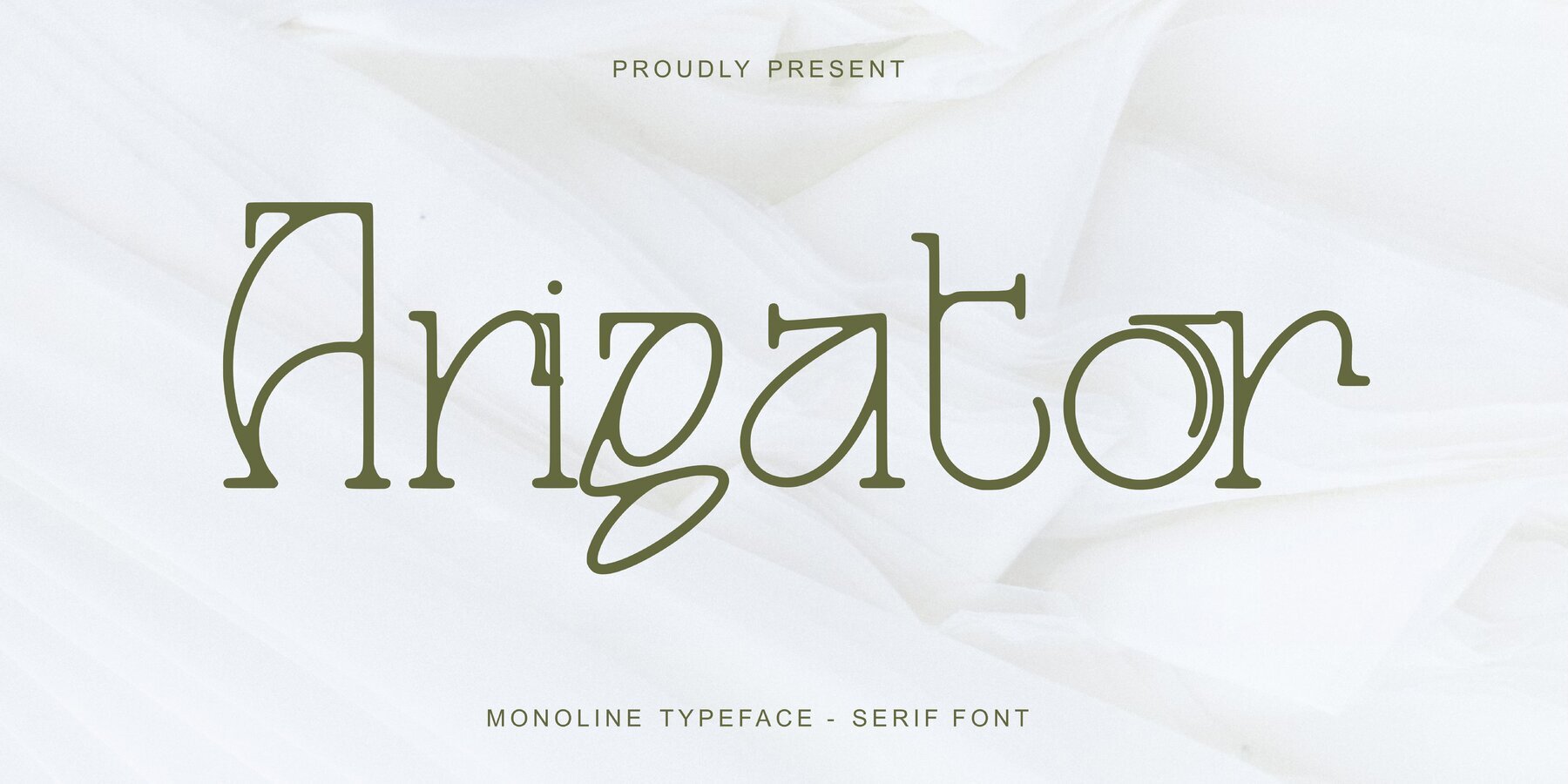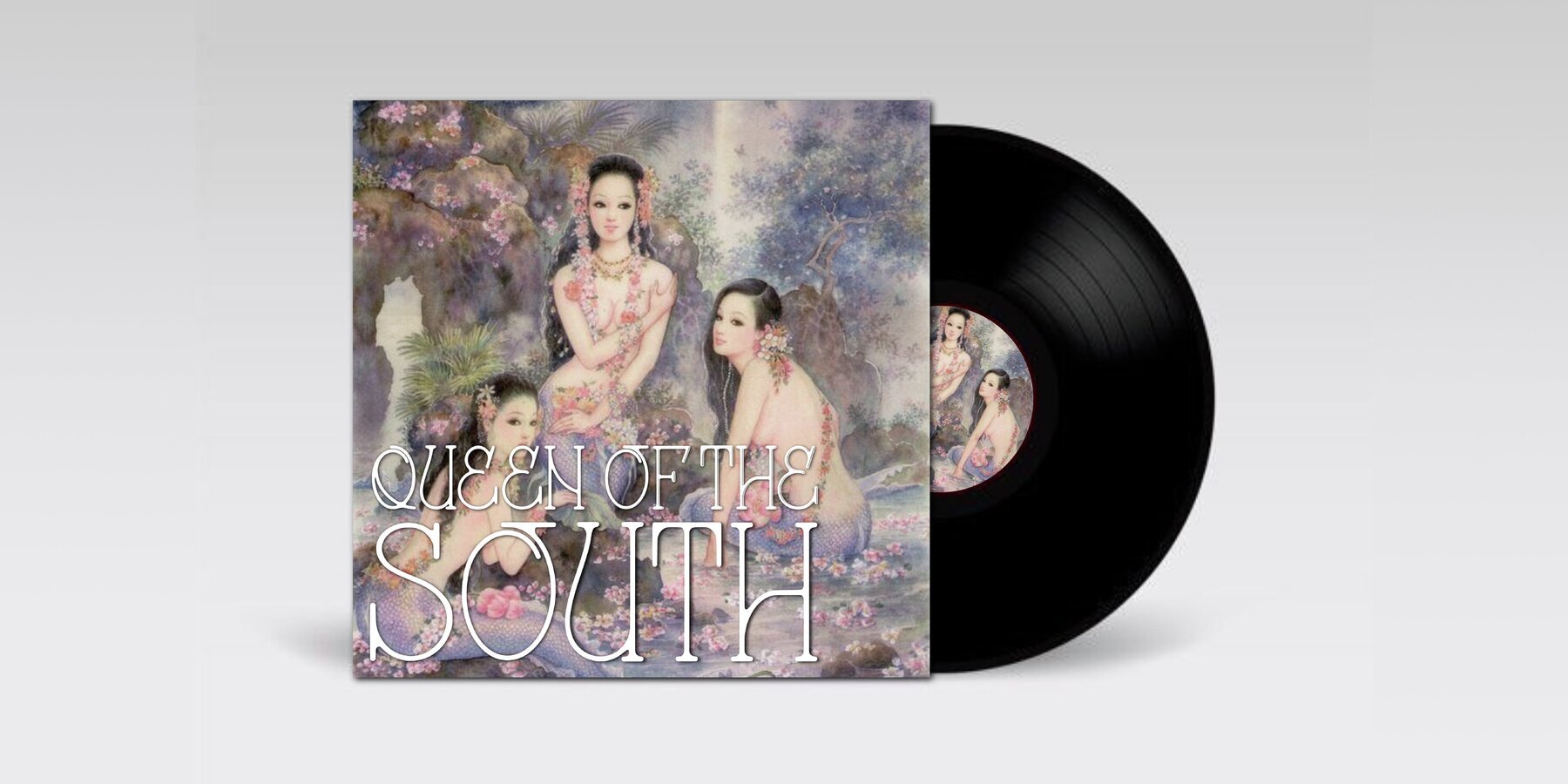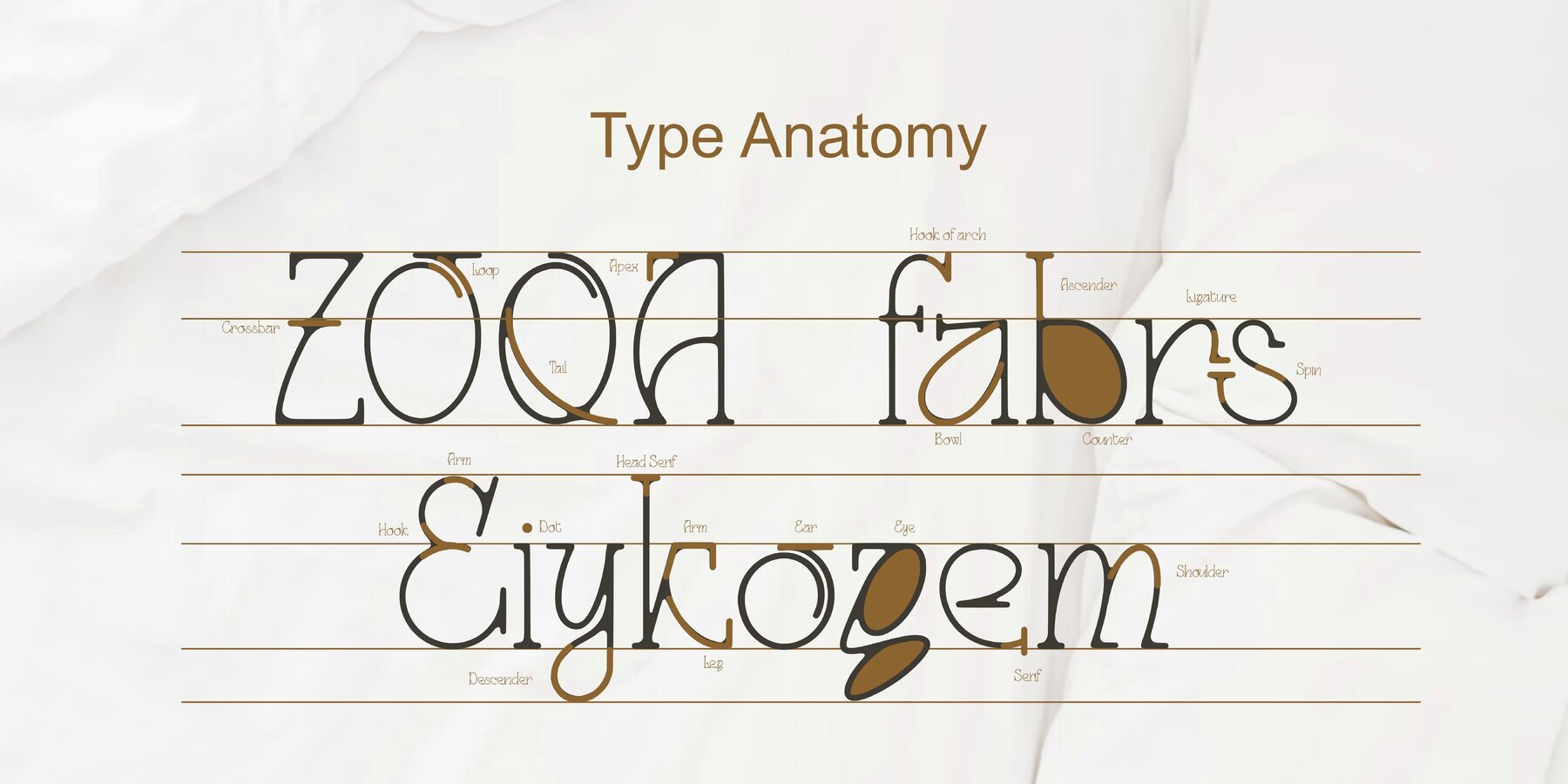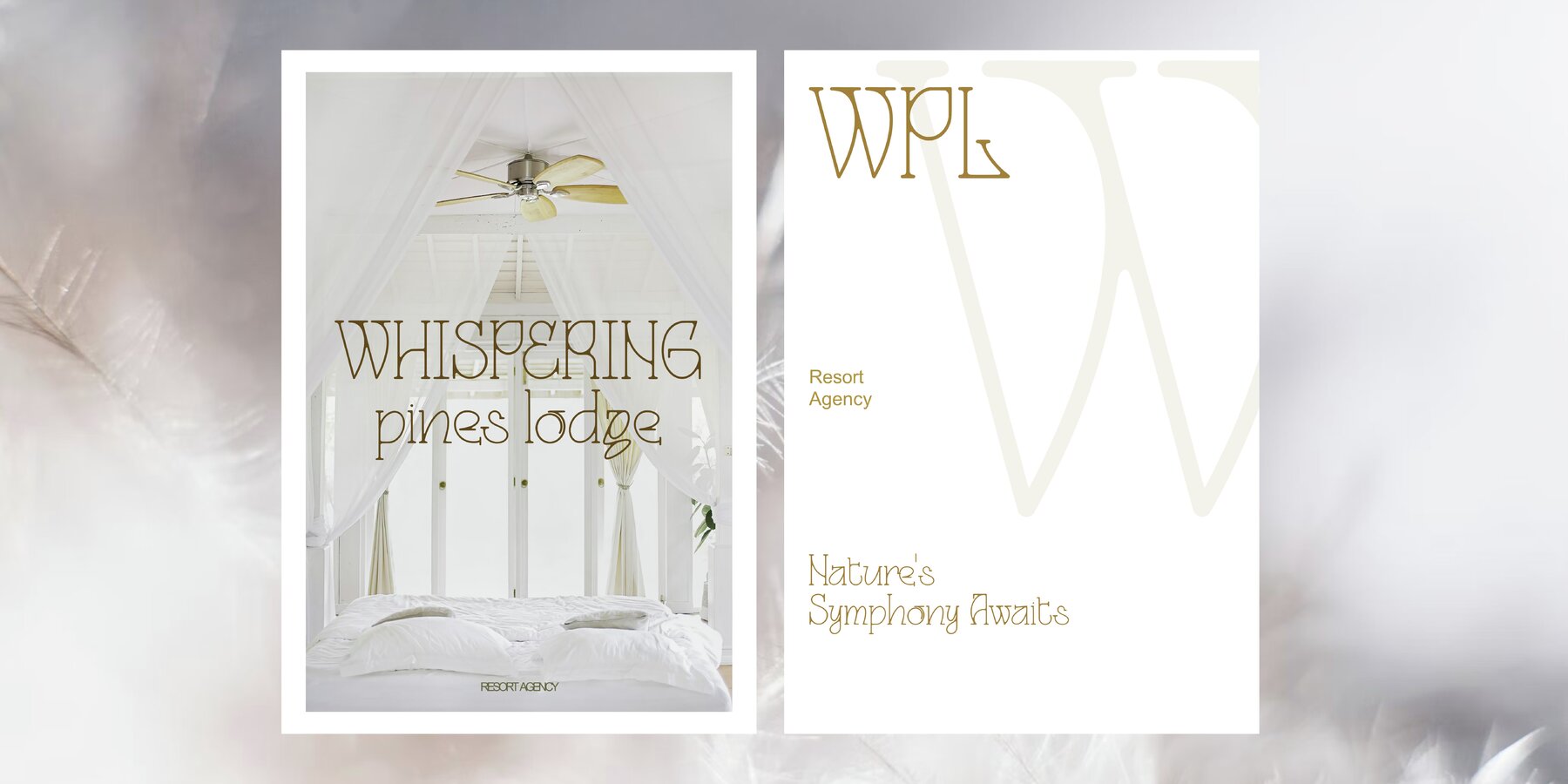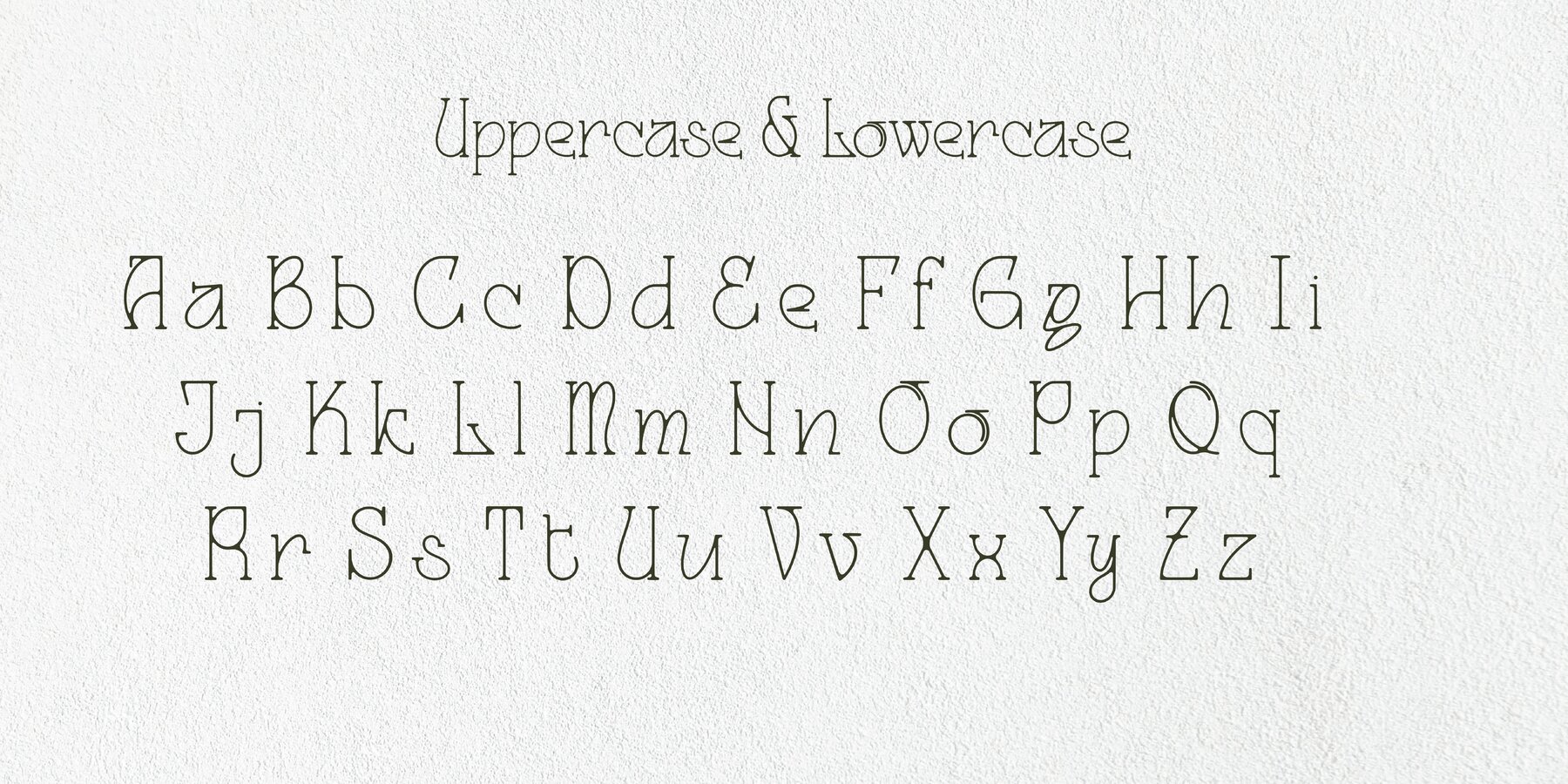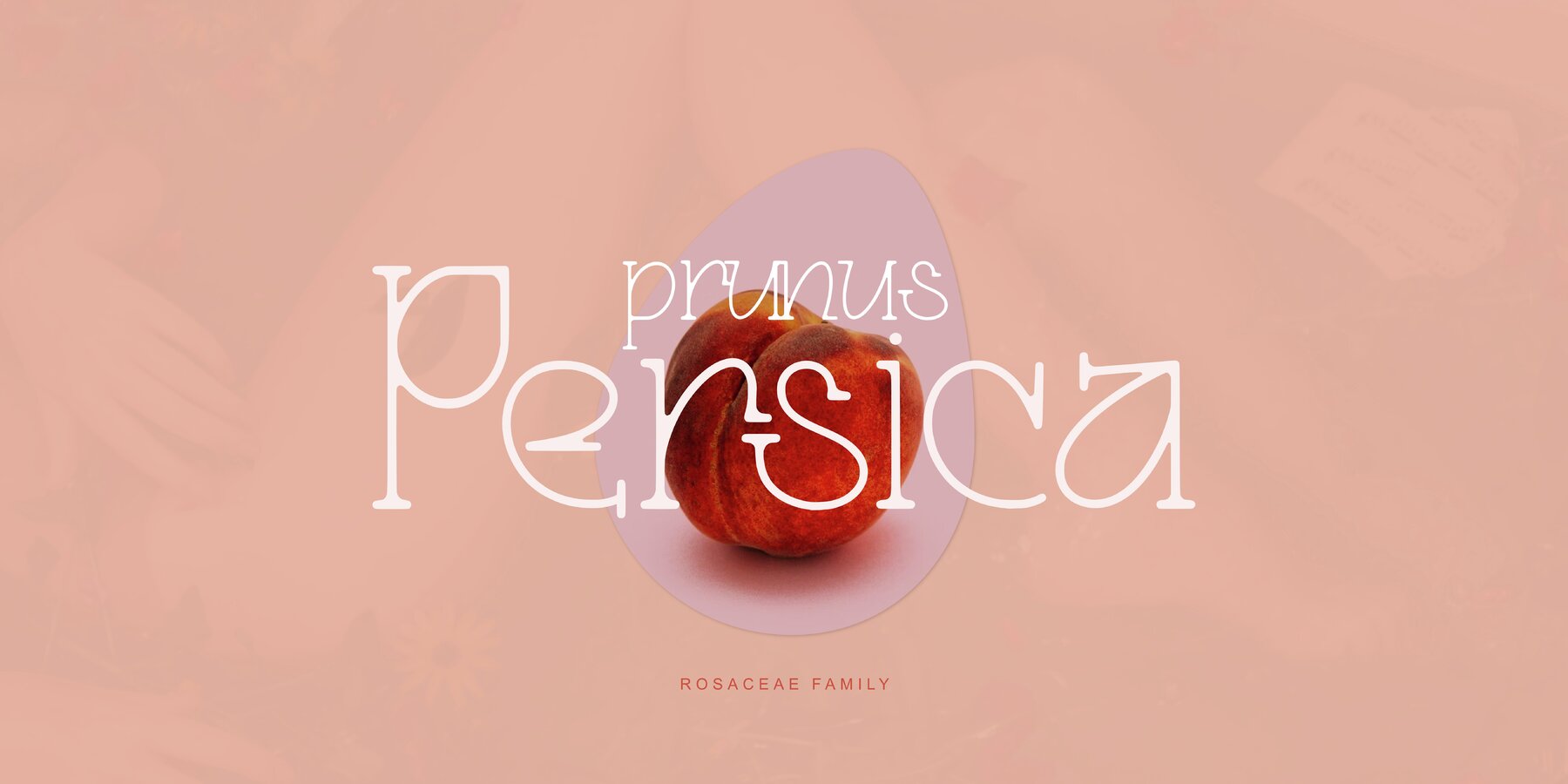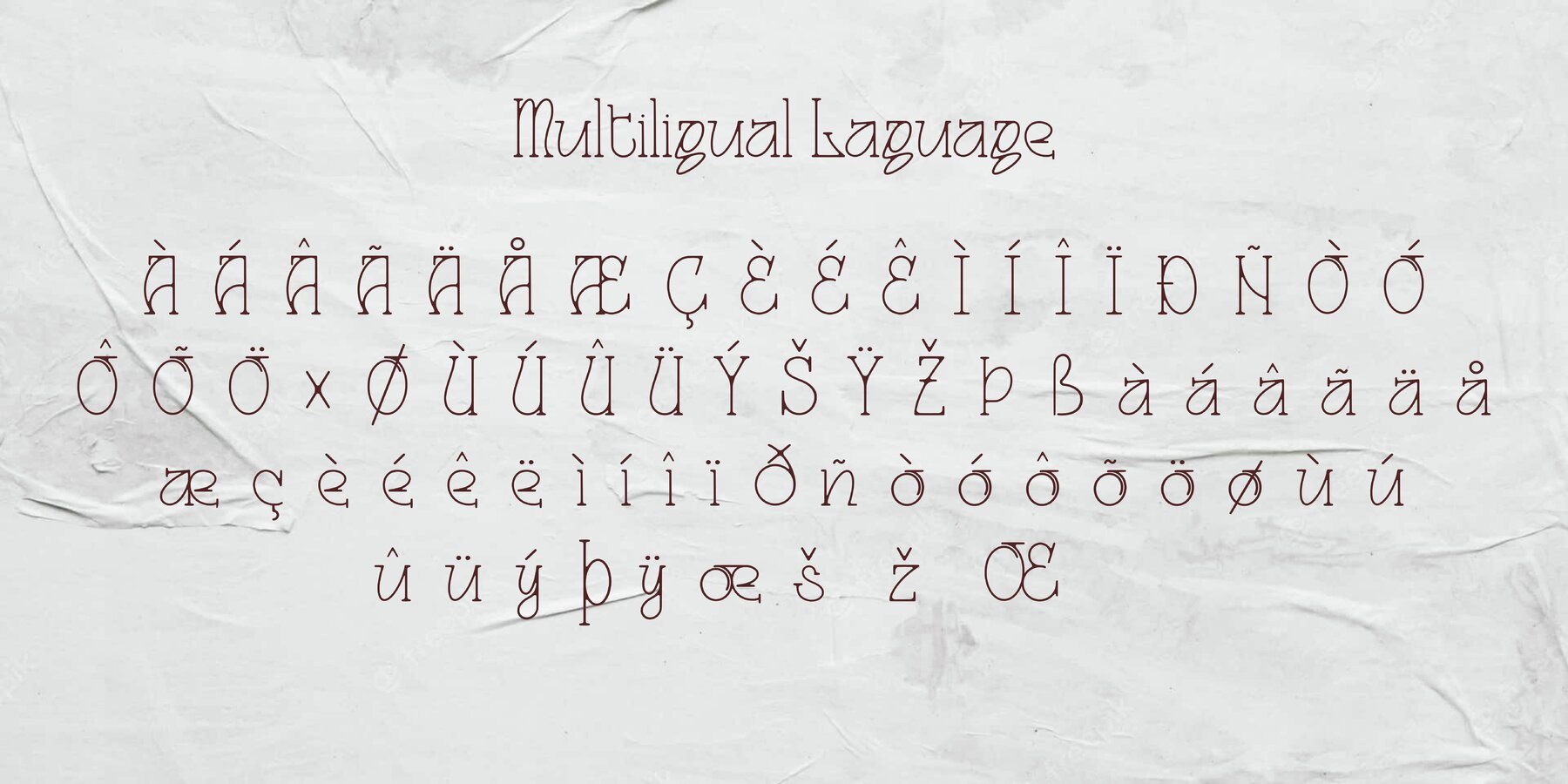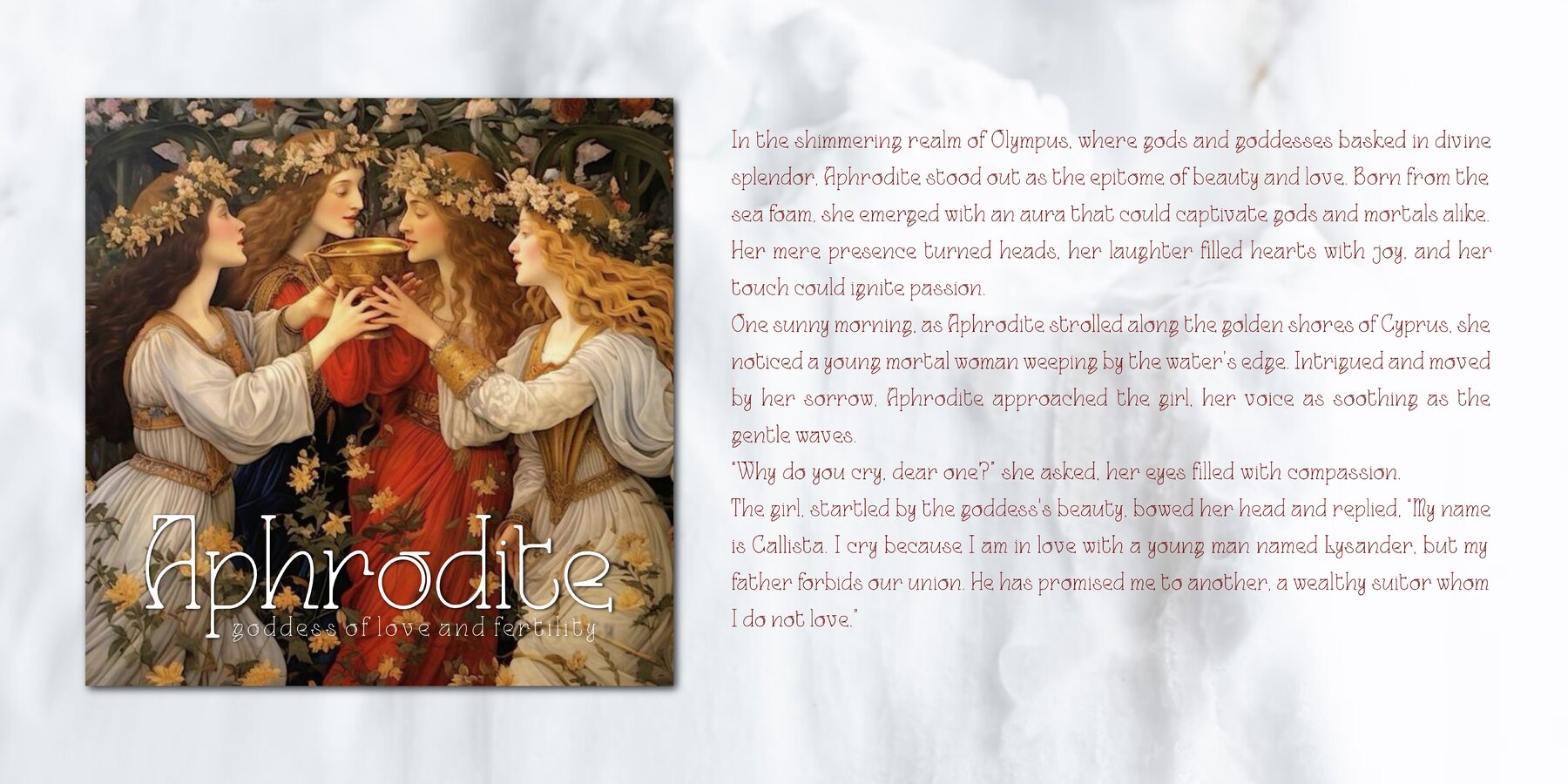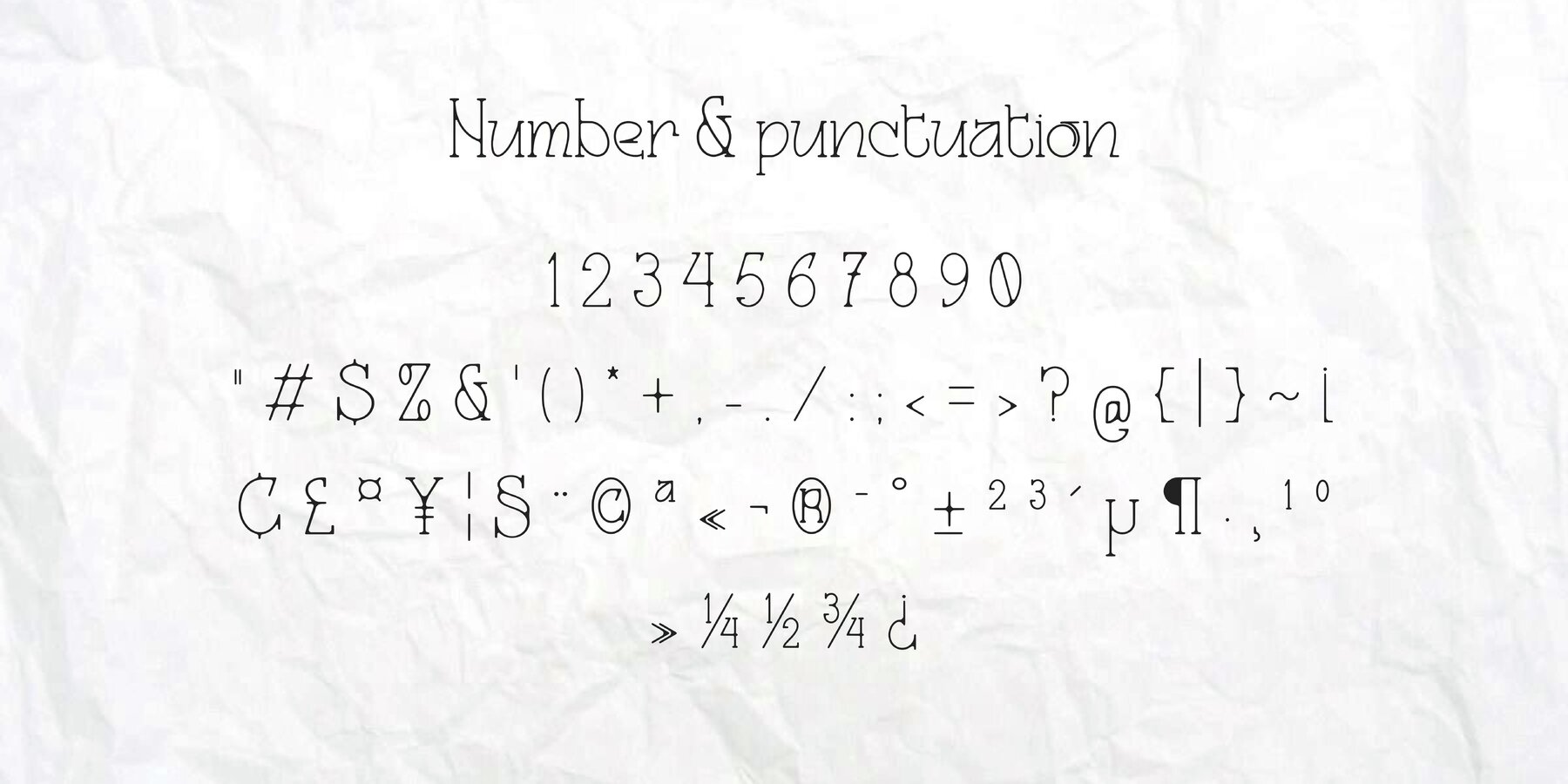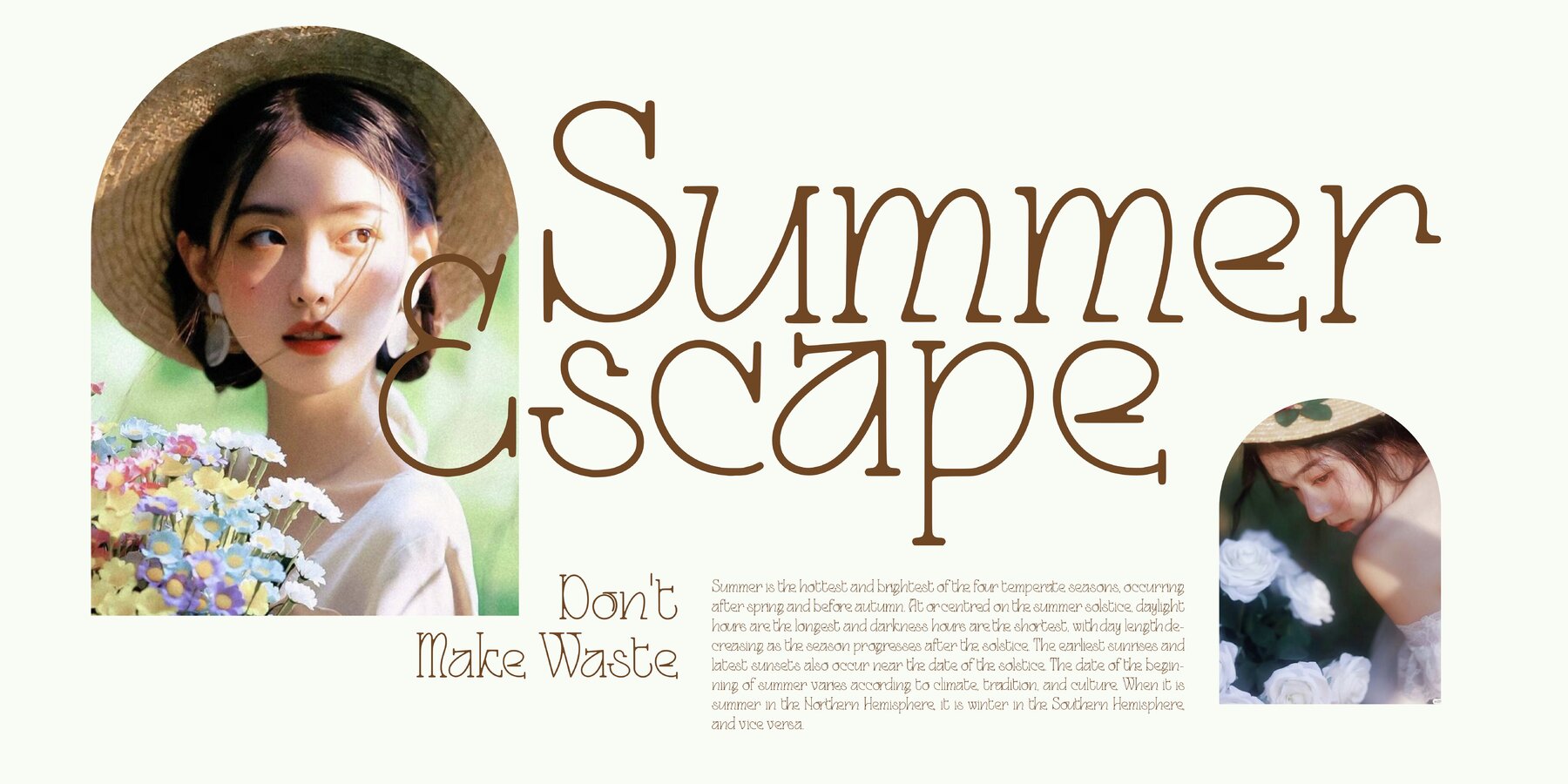
Arigator Font
Arigator Regular
Arigator is a monoline handwritten serif with a unique curve crafted by hand. completed with some ligatures to make your design more unique. This typeface is suitable for your various design needs. such as posters, book and magazine covers, packaging, label, merchandise, brochures, YouTube thumbnail, social media post, logo, stationery, and so on. Use this display typeface to add a special modern and beauty art touch to any design idea you can think of!